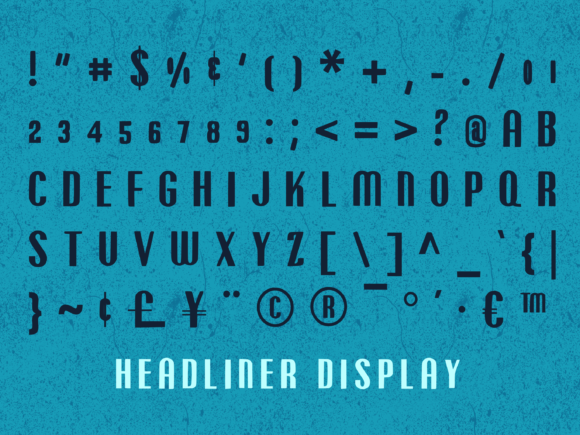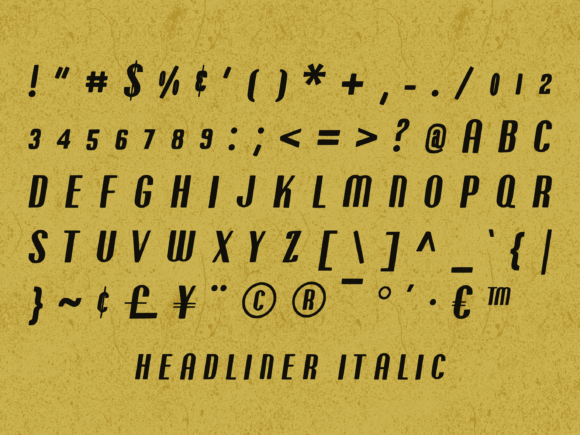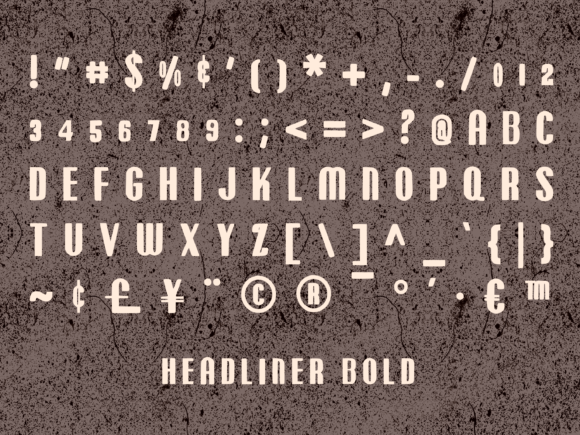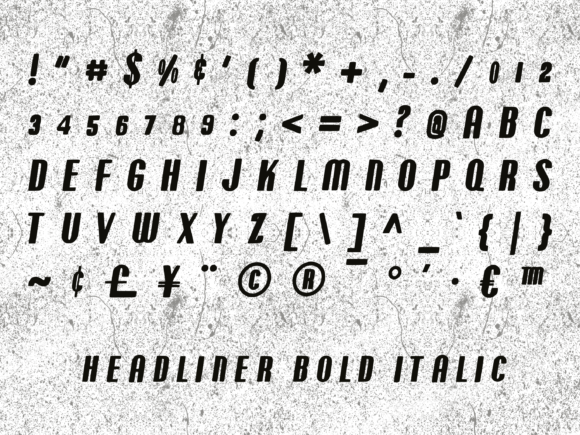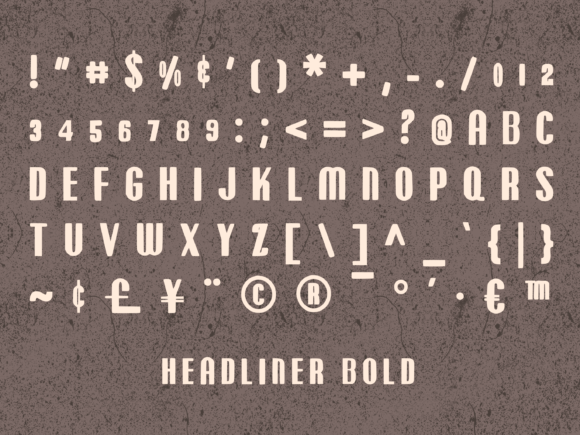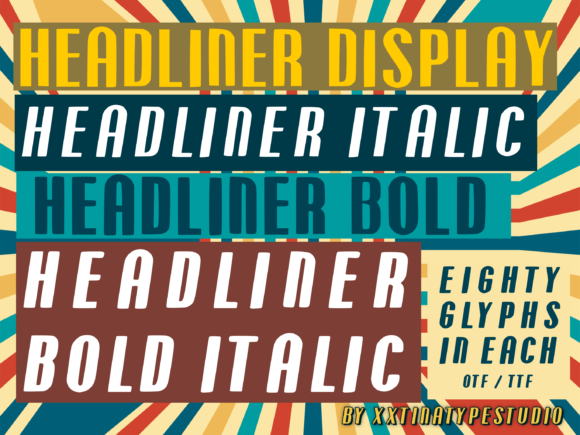
Introducing Headliner Font: The Modern Sans Serif for Stunning Headlines
In the world of typography, fonts play a crucial role in conveying messages, evoking emotions, and creating visual identities. For designers, crafters, and marketers, finding the right font can make all the difference in their creative projects. If you’re on the hunt for a modern, attention-grabbing font that’s perfect for headlines, signs, posters, logos, and more, look no further than Headliner Font.
What is Headliner Font?
Headliner is a contemporary, all-caps sans serif display font that boasts rounded geometrical edges, giving it a unique and stylish flair. Designed to make a statement, Headliner Font is ideal for creating eye-catching headlines, titles, and captions that demand attention. Its clean and minimalist aesthetic makes it versatile enough to be used across various mediums, from digital platforms to print materials.
Key Features of Headliner Font
- Modern Sans Serif Design: Headliner Font features a sleek, sans serif design that exudes modernity and sophistication.
- All-Caps: This font is designed specifically for all-caps usage, making it perfect for headlines, titles, and emphasis.
- Rounded Geometrical Edges: The rounded edges give Headliner Font a subtle softness, setting it apart from traditional sans serif fonts.
- High Versatility: Use Headliner Font for headlines, signs, posters, logos, and more to create visually stunning designs.
Why Choose Headliner Font?
With so many fonts available, why should you choose Headliner Font for your next project? Here are a few compelling reasons:
- Instant Recognition: Headliner Font’s unique design ensures that your headlines and titles will stand out and grab attention.
- Easy to Read: Despite its stylized appearance, Headliner Font remains highly legible, even at smaller sizes.
Design Inspiration: Using Headliner Font in Your Projects
Headliner Font’s versatility makes it suitable for a wide range of design applications. Here are some ideas to get you started:
- Posters and Flyers: Create bold, eye-catching posters and flyers that demand attention.
- Logos and Branding: Use Headliner Font to create unique and memorable logos that reflect your brand’s personality.
- Signage and Displays: Headliner Font is perfect for creating signs, banners, and displays that need to stand out.
- Digital Media: Use Headliner Font in your digital projects, such as social media graphics, video titles, and website headers.